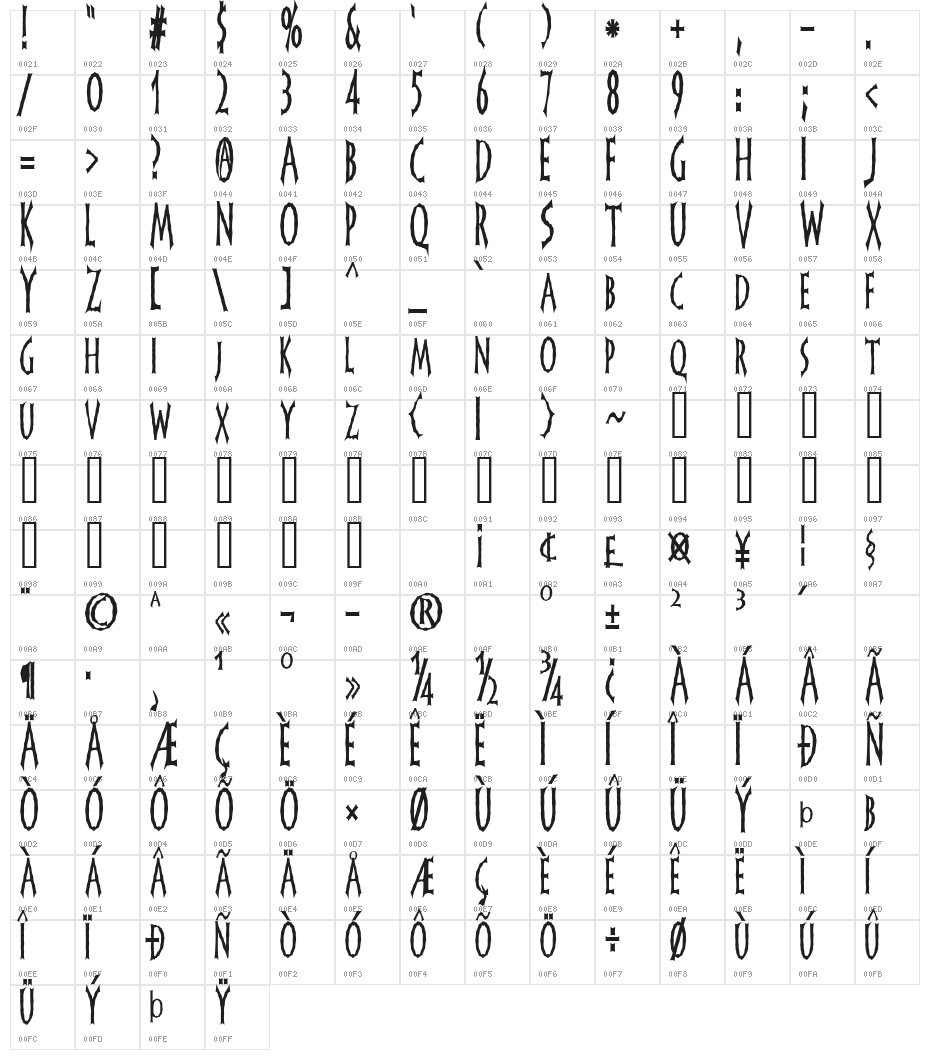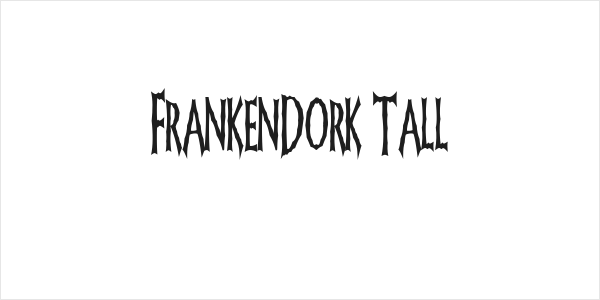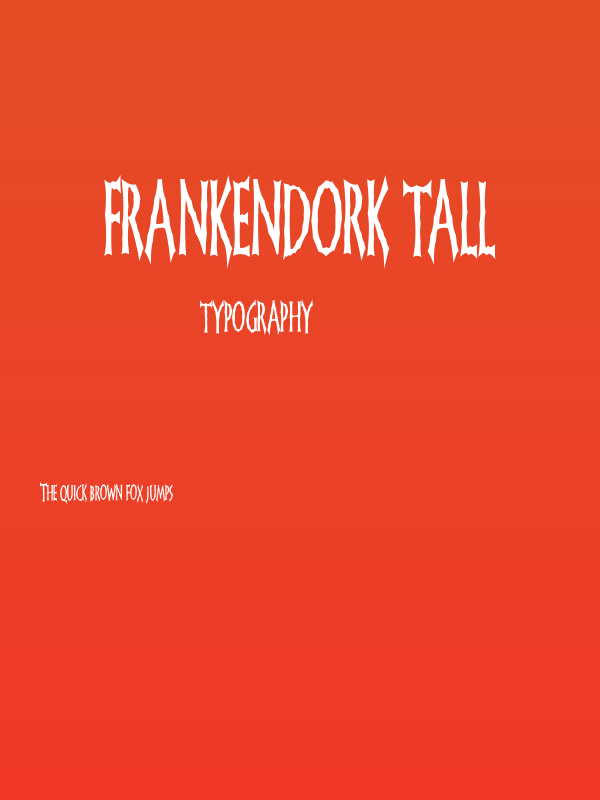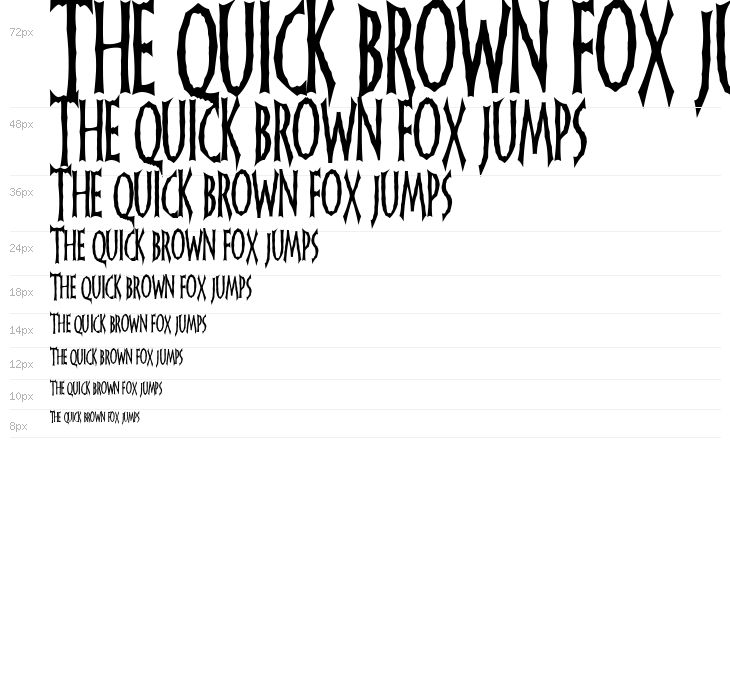
FrankenDork Tall Font
FrankenDork Tall Description
This font features a tall, jagged design that evokes a sense of eerie, playful horror. The characters are elongated with irregular edges, reminiscent of classic horror movie titles. The uppercase and lowercase letters maintain a consistent height, creating a cohesive look. Numbers and special characters follow the same jagged style, adding to the font's unique personality. The overall appearance is both quirky and unsettling, making it ideal for themes that require a spooky or unconventional touch.
| Proposed Projects | Ideal for Halloween-themed posters, horror movie titles, spooky event invitations, and decorative graphics. |